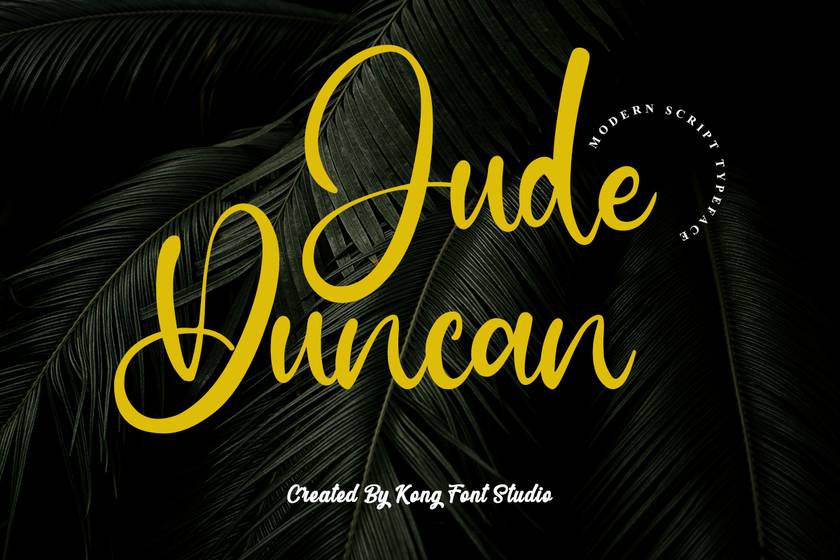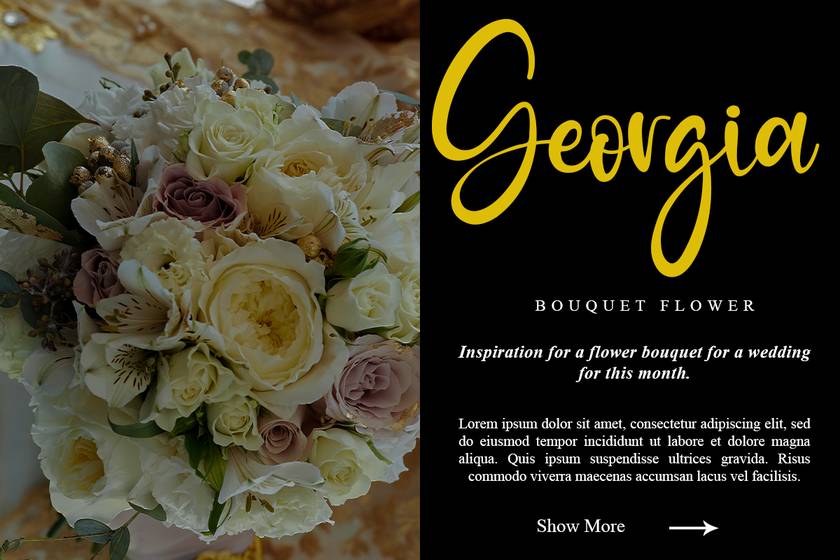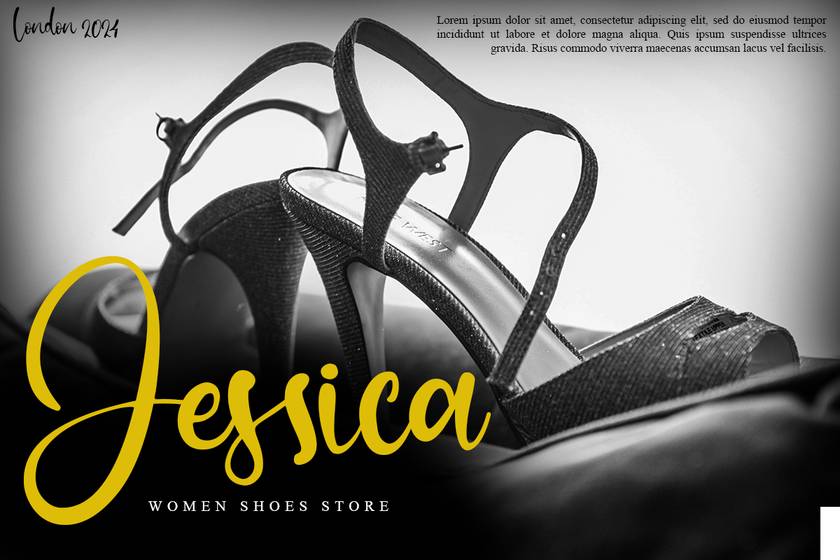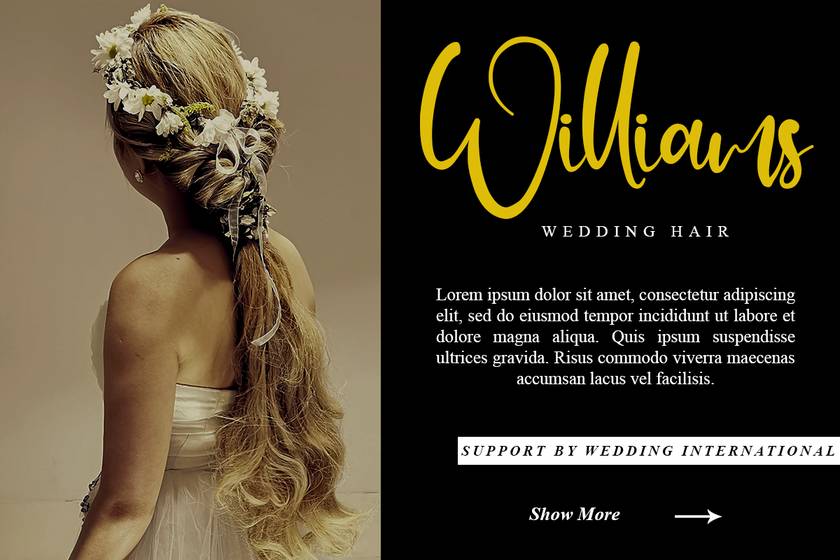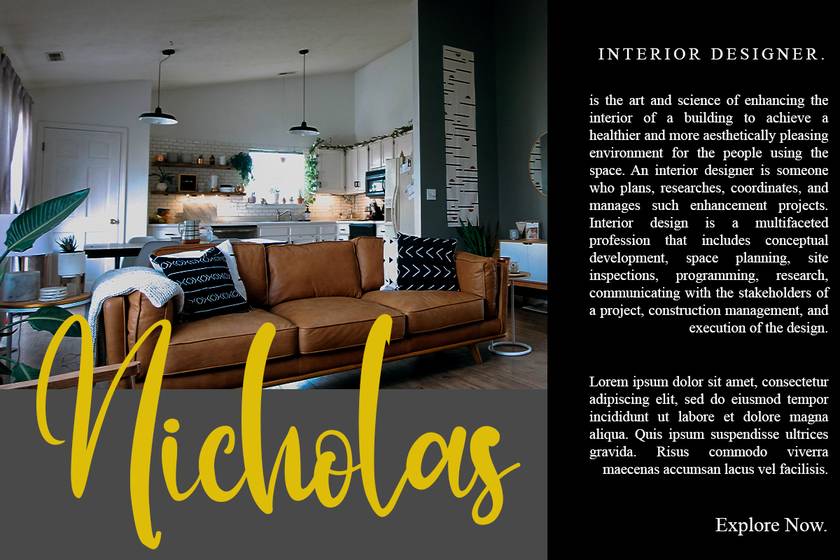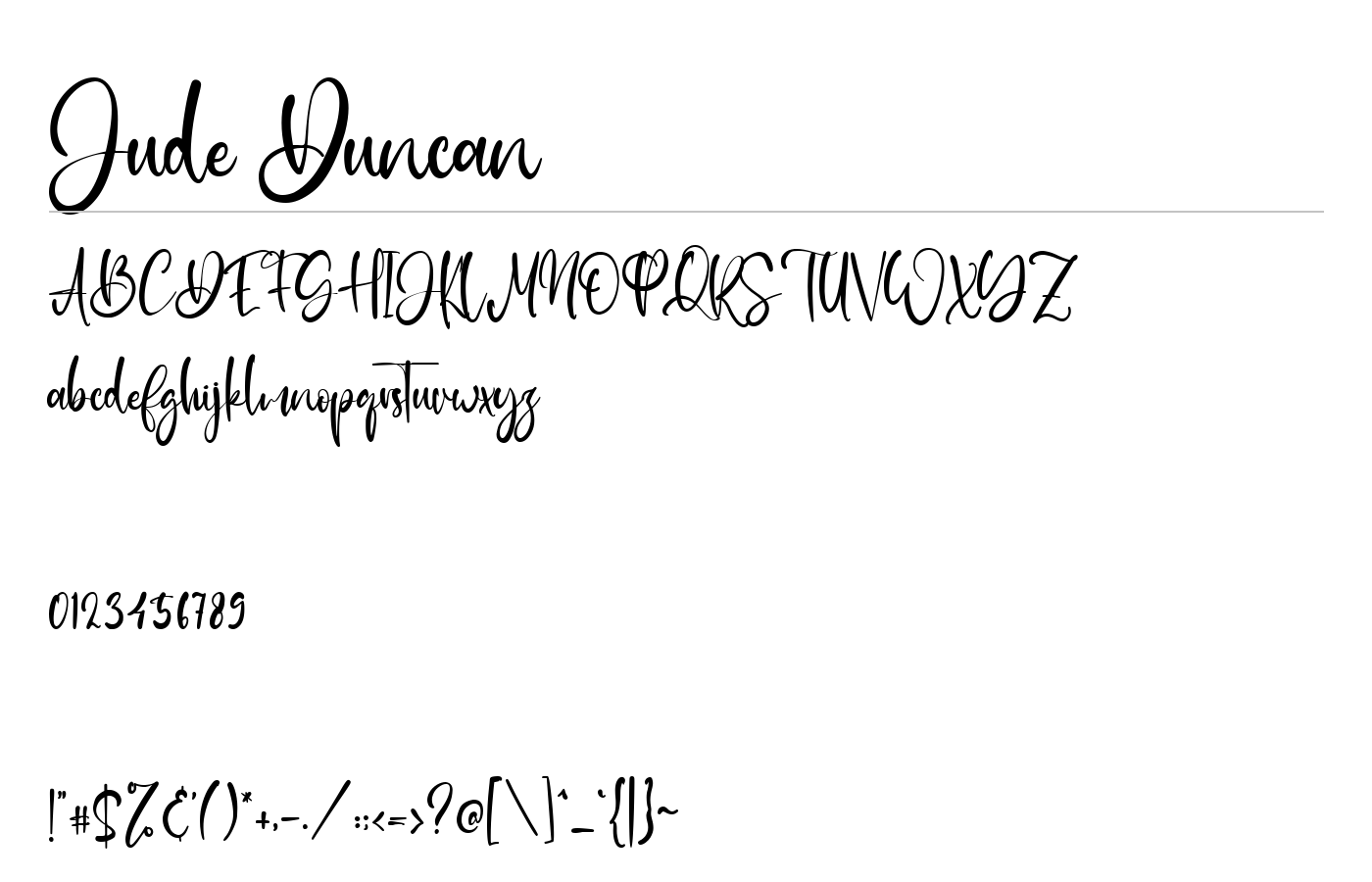
Jude Duncan is a charming handwritten script font with a playful yet elegant personality. Its thin, flowing strokes and lively letterforms bring a friendly and personal touch, making it ideal for creative projects, invitations, and branding that seeks a warm, approachable feel. This font works beautifully for logos, social media graphics, and packaging where a stylish, handcrafted look is desired.
Jude Duncan Font
About Jude Duncan Font